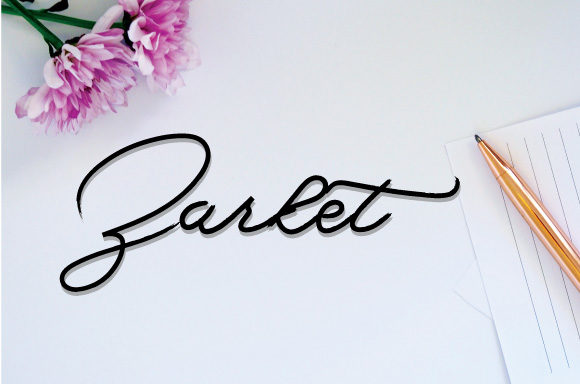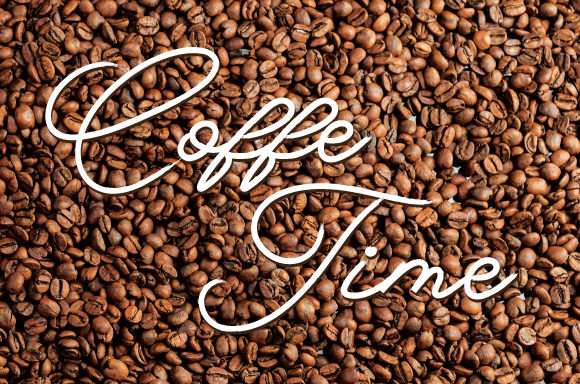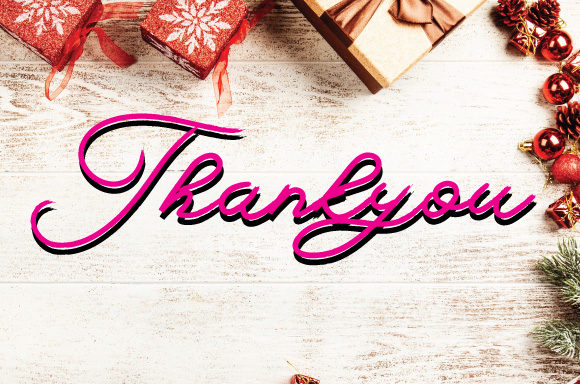
Introduction to Romeo and Juliet Font
As a designer, there’s no denying the thrill of stumbling upon the perfect font to elevate a creative project. For some, it’s the moment when a concept starts to take shape, and the words begin to flow effortlessly. This is exactly what happens when you discover the Romeo and Juliet Font – a dazzling script font that brings a touch of elegance to any design.
With its relaxed theme and lovely style, this font is a valuable addition to any designer’s library. Whether you’re working on a personal project or a professional assignment, the Romeo and Juliet Font has the potential to take your design to the next level. And the best part? It’s available for free download, complete with a transparent background, making it a high-quality design resource that’s sure to impress.
Honest Review: Romeo and Juliet Font
As a designer, I was excited to try out the Romeo and Juliet Font, and I’m happy to share my honest review. I downloaded it from a popular design resource website, and I was impressed by its high quality. The font is a beautiful, elegant script that’s perfect for creative projects that require a touch of romance and sophistication.
What works well: ✨ The font is incredibly versatile, and it works beautifully for both digital and print projects. It’s also a great choice for creating transparent backgrounds, which is perfect for designers who want to add a touch of whimsy to their designs. The font is also very easy to customize, which is a big plus for designers who want to make it their own.
Here are some key features of the Romeo and Juliet Font:
- Translucent background for a whimsical touch
- Easy to customize for a personalized look
⚠️ My only criticism is that the font can be a bit tricky to use in certain situations, such as when working with small text sizes. Additionally, the font may not be compatible with all operating systems, so be sure to test it thoroughly before using it in a live project.
Overall, I’m really impressed with the Romeo and Juliet Font, and I would highly recommend it to designers who are looking for a high-quality, elegant script font for their creative projects.
The Romeo and Juliet Font is perfect for a variety of creative projects, including wedding invitations, social media posts, promotional graphics, and presentations. The font’s romantic and elegant feel makes it ideal for projects that require a touch of sophistication and glamour.